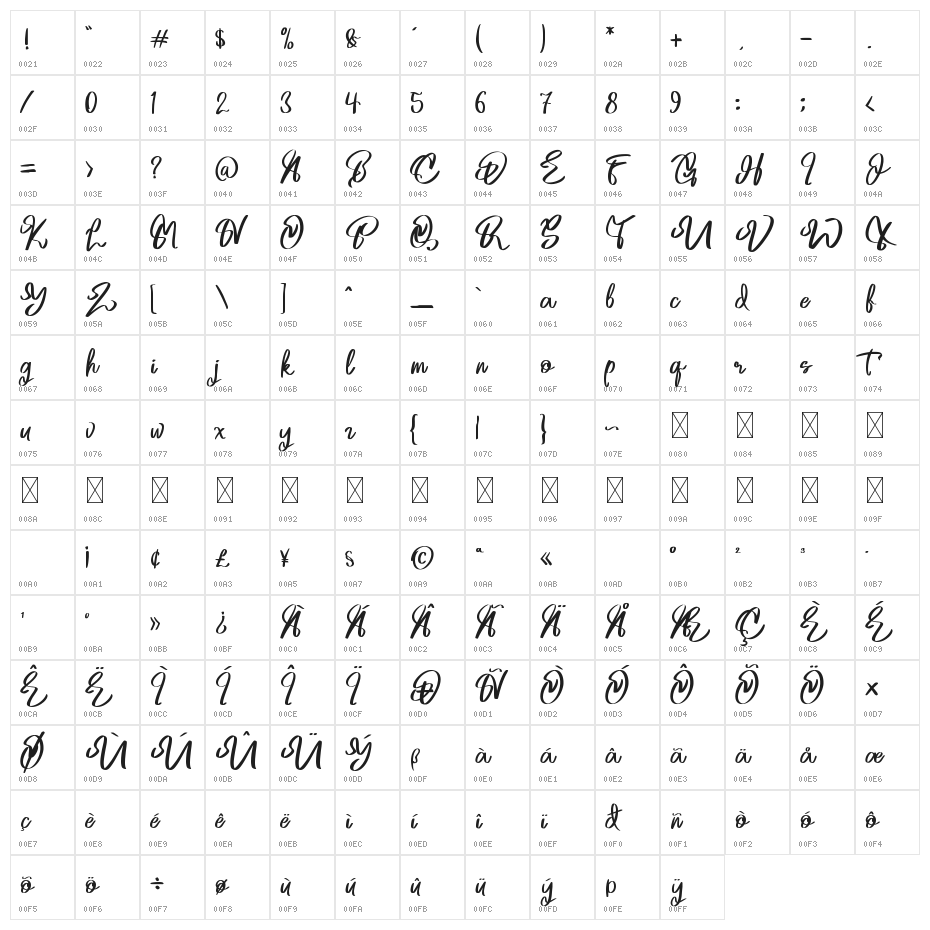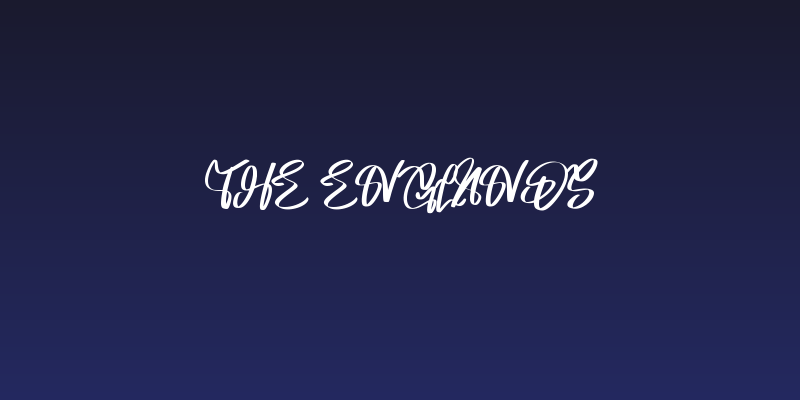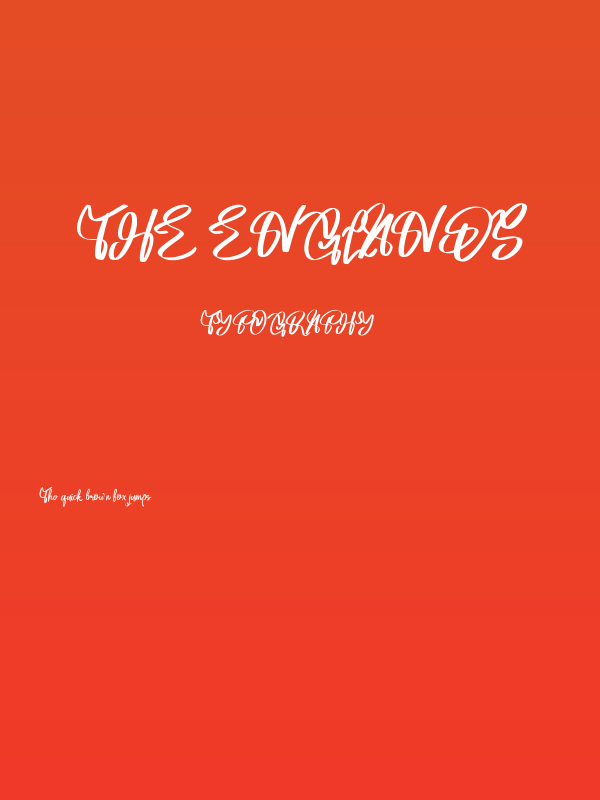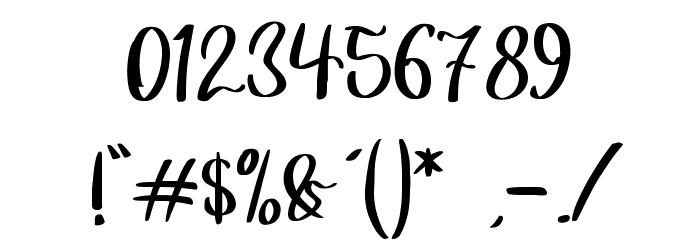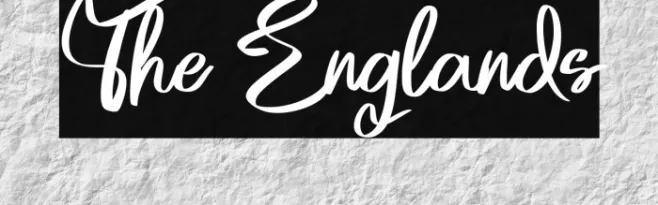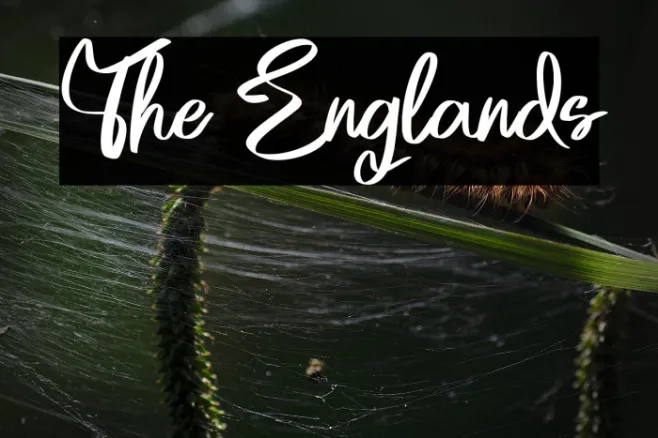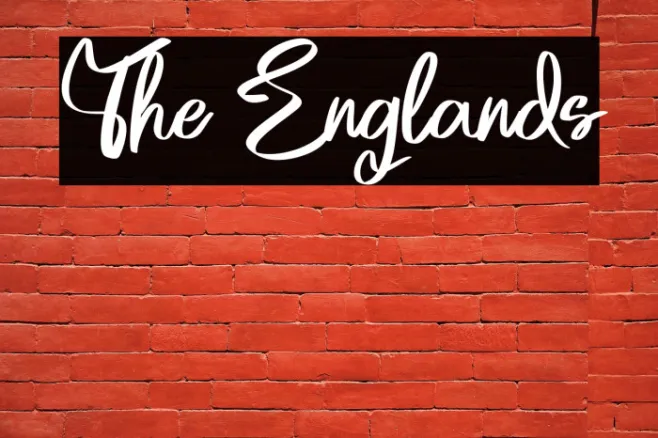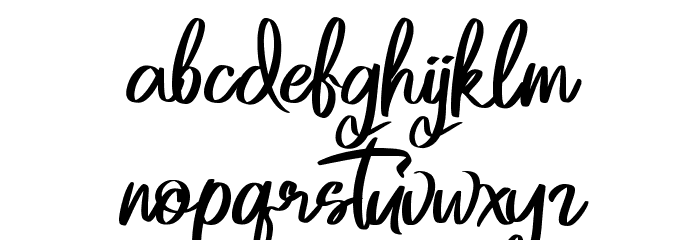
The Englands Font
The Englands Description
This font features a bold and flowing script style, characterized by its elegant and cursive letterforms. The uppercase letters are ornate with sweeping curves and flourishes, giving a sense of sophistication and grace. The lowercase letters maintain a consistent flow, with some characters featuring unique loops and connections that enhance the overall aesthetic. Numbers and special characters are designed to match the script's fluidity, ensuring a cohesive look across all text. The font's dynamic and artistic style makes it suitable for creative and expressive designs.